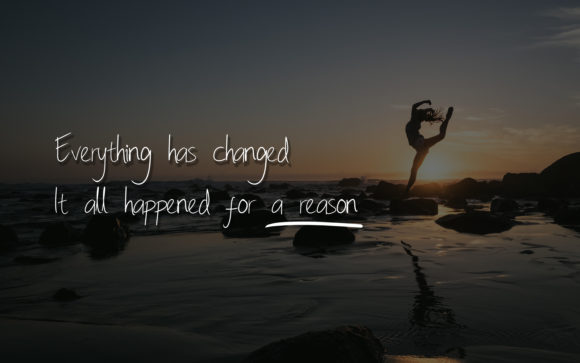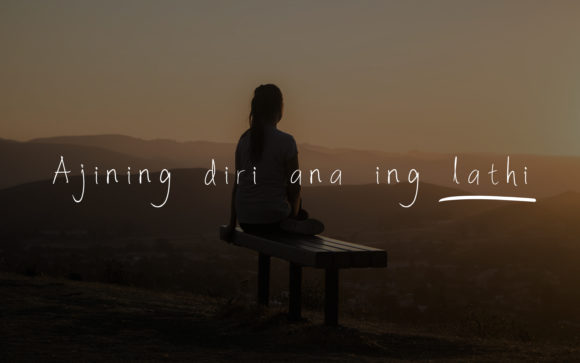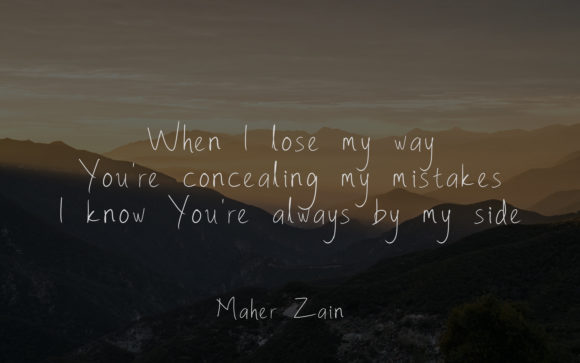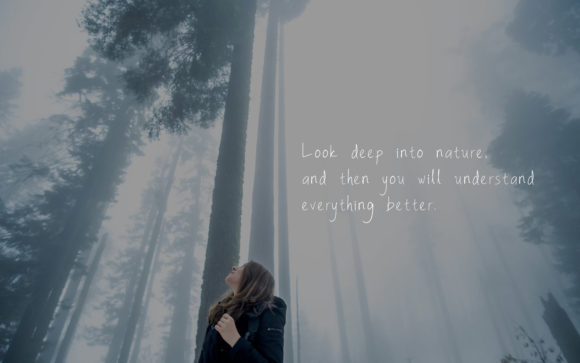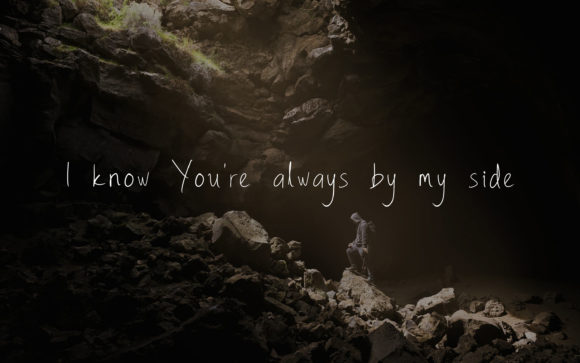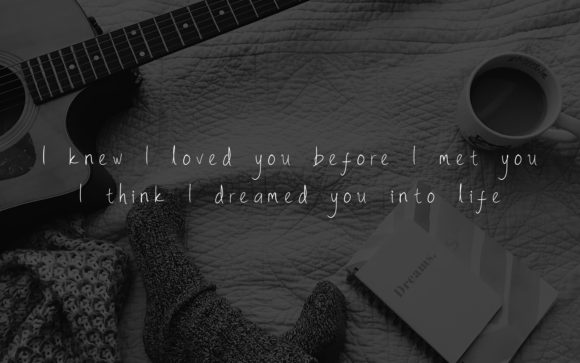
The Acakadul Font: A Relaxed and Casual Handwritten Delight
I’ll never forget the design project that led me to discover the Acakadul font. I was working on a branding project for a new coffee shop, and I was struggling to find the perfect font to capture their laid-back, yet stylish vibe. That’s when I stumbled upon Acakadul, and it instantly became my go-to choice. In this article, I’ll share my love for this beautiful font, its features, and how to make the most of it in your designs.
An Honest Review of Acakadul
What I Love About Acakadul ✨
- ✅ Versatility: Acakadul is incredibly versatile, making it perfect for a wide range of design projects, from branding and packaging to social media graphics and invitations.
- ✅ Readability: The font’s thin lettering and simple design ensure that it’s easy to read, even at smaller sizes.
- ✅ Aesthetics: Acakadul has a relaxed, casual feel that’s perfect for creating designs that are both stylish and approachable.
- ⚠️ Limited formal applications: Due to its casual nature, Acakadul might not be the best choice for formal or corporate designs.
- ⚠️ Glyph limitations: While Acakadul has a range of glyphs and OpenType features, it might not have every special character or symbol you need.
The Story Behind Acakadul
Acakadul was designed by a talented type designer who’s passionate about creating beautiful, functional fonts. The designer’s inspiration for Acakadul came from their love of handwritten letters and casual, everyday writing. The result is a font that’s both stylish and approachable, perfect for creating designs that feel relaxed and friendly.
Q: What is Acakadul font?
Acakadul is a relaxed and casual handwritten font that’s perfect for creating designs that are both stylish and approachable.
Q: What type of designs is Acakadul best suited for?
Acakadul is versatile and can be used for a wide range of design projects, including branding, packaging, social media graphics, invitations, and more.